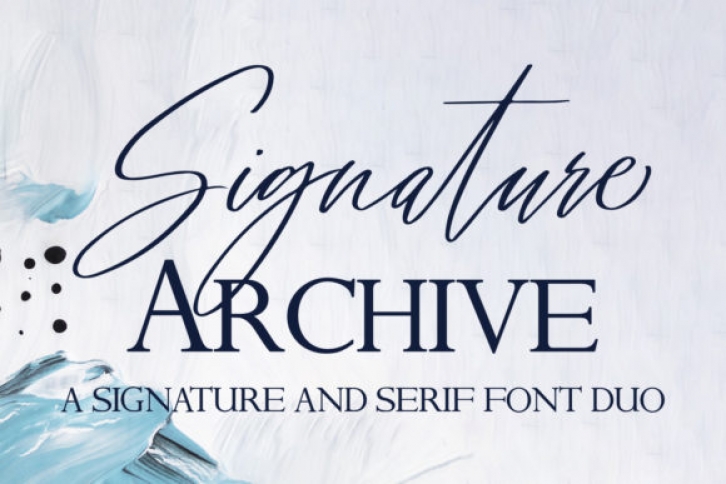
Signature Archive is a beautiful font duo that combines two trending styles: serif caps and signature script. Combining these two fonts on your next design will give an authentic and sophisticated feel. This versatility means that this font can be used in a wide variety of applications from stationery, to wedding invitations- the only limit is your imagination!
It will elevate a wide range of design projects to the highest level, be it branding, headings, wedding designs, invitations, signatures, logos, labels, and much more!